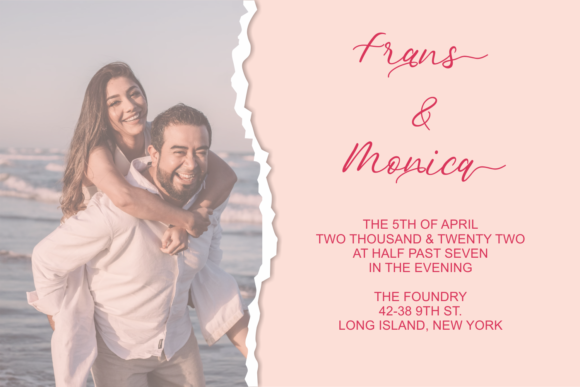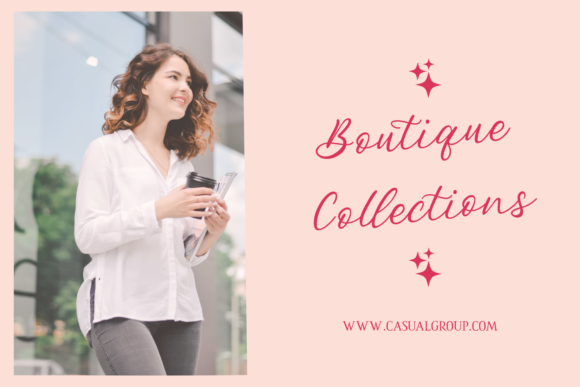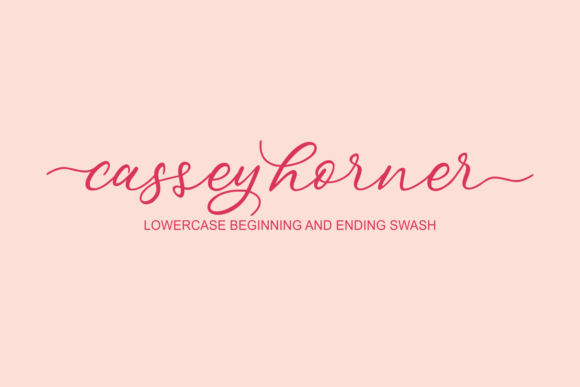
Introduction to Jupitters Font
Have you ever stumbled upon a font that makes your creative project come alive? For designers, finding the perfect font can be a game-changer. It’s that moment when everything falls into place, and your design takes on a life of its own.
One such font that has been making waves in the design community is the Jupitters Font. This stylish and delicate handwritten font is a treasure trove of creative possibilities. From branding and signature to wedding invitations and product packaging, Jupitters Font is a versatile design resource that can elevate any project.
Key Features of Jupitters Font
- High-quality, professional font design suitable for creative projects
- Unique characteristics: bold, elegant, and modern design aesthetic, perfect for branding and advertising
Honest Review: Jupitters Font
As a designer, I’m always on the lookout for high-quality fonts to enhance my creative projects. Jupitters Font caught my eye with its unique design and free download option. Let’s dive into my honest review.
✨ Jupitters Font has a wide range of weights and styles, making it a versatile design resource for various projects. The font is also highly legible, even at smaller font sizes.
Key Features
- Wide range of weights and styles
- Legible even at smaller font sizes
⚠️ One limitation of Jupitters Font is its limited language support. It may not be suitable for projects that require a wide range of languages.
Overall Impression
Jupitters Font is a solid addition to any designer’s toolkit. Its unique design and high-quality features make it a great choice for creative projects. While it may have some limitations, it’s a great free download option for designers looking to enhance their work.
Common Use Cases for Jupitters Font
Jupitters Font is perfect for creative projects, such as:
- Infographics
- Business cards
- Posters
- Brochures